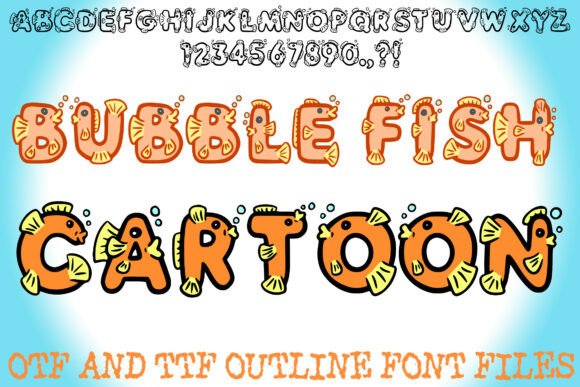
Dive into the Fun with the Bubble Fish Cartoon Font
This unique, adorable typeface brings the cheerful world of the aquarium directly to your projects. Each chunky, rounded letter is uniquely designed to look like a friendly, chubby fish, complete with fins, tails, and little floating air bubbles. It’s perfect for any project targeting children, including educational materials, birthday invitations, party decorations, and playful branding.
- ✨ The font’s clear, bold shape ensures high visibility, making it an excellent display font for headers, posters, and apparel.
- ✅ The design is highly decorative and perfect for projects that need a playful touch.
- ✅ Capital letters are available in black outline, adding a nice touch for designs that require it.
⚠️ One thing to note is that the font includes capital letters, numbers, and a few special characters (., ?, !), but it’s not a comprehensive character set. So, if you need a wide range of characters for your project, you might find this a bit limiting.
🤔 Another consideration is that the font’s playful design might not be suitable for more formal projects. It’s all about the context and the message you’re trying to convey.
The Bubble Fish Cartoon Font was likely inspired by the playful world of aquariums and the joy of childhood. Imagine a designer who spent countless hours watching fish swim in an aquarium, mesmerized by their movements and colors. This font captures that sense of wonder and playfulness, bringing it to life in a unique and delightful way.
| Font Name | Bubble Fish Cartoon Font |
| Author | squeebcreative |